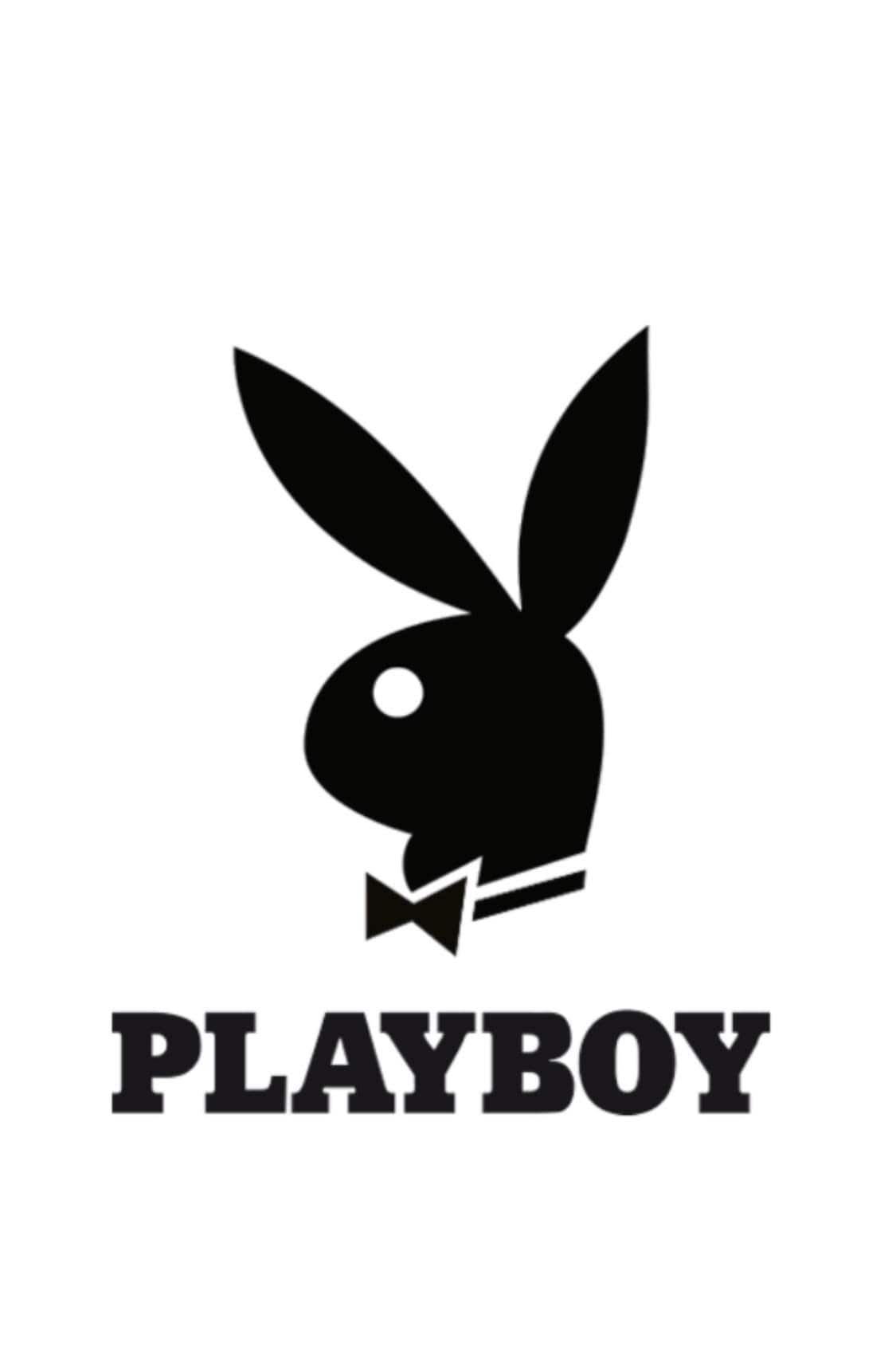
Playboy Symbol Font
Playboy Symbol Font - Web playboy font is a custom design logo font with a custom bunny icon in the top. So, what font is used in the famous playboy.
Web playboy font is a custom design logo font with a custom bunny icon in the top. So, what font is used in the famous playboy.
So, what font is used in the famous playboy. Web playboy font is a custom design logo font with a custom bunny icon in the top.
So, What Font Is Used In The Famous Playboy.
Web playboy font is a custom design logo font with a custom bunny icon in the top.